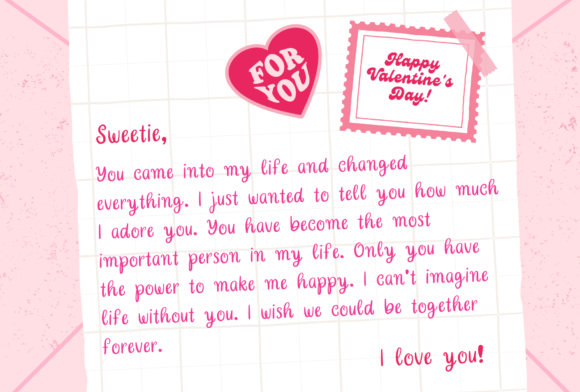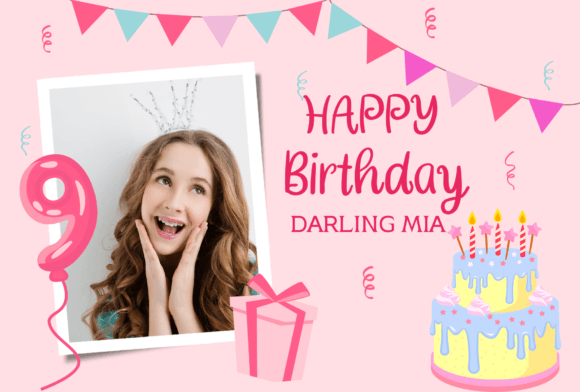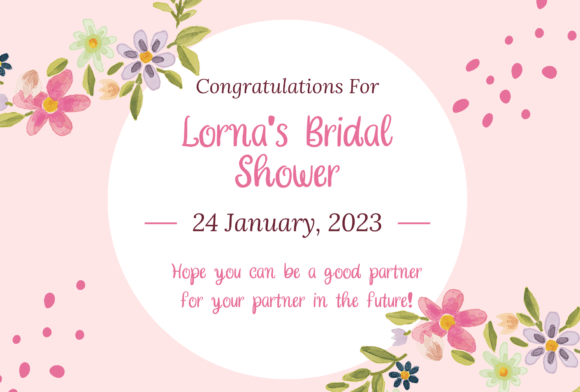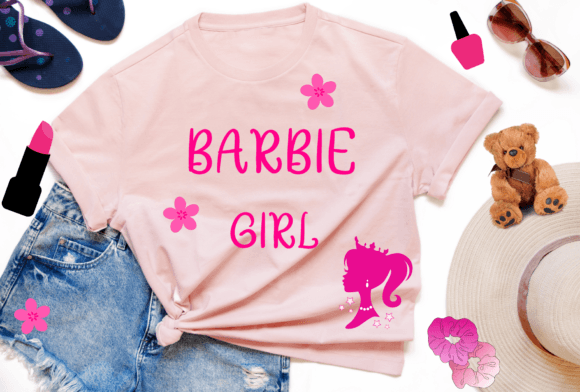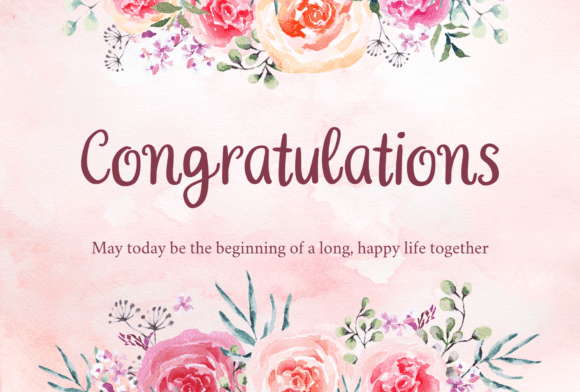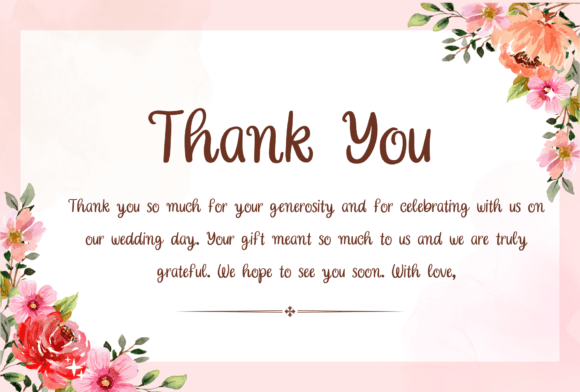
Unleashing Whimsy with the Barbie Girl Font
Have you ever found yourself scribbling out a birthday card for a little one, trying to convey the magic of childhood through words? That’s exactly where I was when I stumbled upon the delightful Barbie Girl Font. Its bright, cheerful letters seemed to dance off the page, capturing the essence of whimsy and wonder that we all strive to convey in our creative endeavors.
As a font, Barbie Girl is a charming, handwritten script that’s perfect for a variety of projects, from birthday cards and Valentine’s Day messages to wedding anniversary celebrations and fun merchandise like t-shirts and keychains. Designers will love the flexibility and playfulness it brings to their work, making it an invaluable addition to any digital design toolkit.
Key Features of Barbie Girl Font
- Font Family: Barbie Girl Font is a sans-serif font designed by Fontalicious, with a distinctive, playful look.
- Unique Characteristics: The font’s distinctive features include a rounded, childlike appearance, with a mix of bold and thin lines, giving it a fun and playful vibe.
Designer Review: Barbie Girl Font
Overall, the Barbie Girl Font is a fun and playful font that captures the essence of the iconic Barbie character. It’s perfect for designs that require a touch of whimsy and femininity.
The font’s main strengths include:
- ✨ Unique and distinctive letterforms that evoke a sense of nostalgia and retro charm
- ✨ Excellent legibility, making it suitable for body text and headings
- ✨ Versatility in usage, from fashion and beauty to kids’ products and educational materials
However, the font also has some limitations:
- ⚠️ Limited range of font weights and styles, which might limit its application in more complex designs
- ⚠️ Not ideal for serious or professional contexts, as it may come across as too childish or gimmicky
- ⚠️ Potential issues with font rendering at smaller sizes or in low-resolution environments
Overall, I would recommend the Barbie Girl Font for designs that require a lighthearted and playful touch. While it may not be suitable for every project, it’s a great choice for creative and imaginative designs that need a dash of fun and personality.
To get the most out of the Barbie Girl font, try combining it with bold, italic, or strikethrough effects to add emphasis.
You can also use the font in conjunction with other decorative fonts to create a unique and eye-catching design.
The Barbie Girl font is perfect for:
- Young adult fashion and lifestyle designs
- Playful and whimsical branding and marketing materials
Alternatives to “Barbie Girl Font” for Designers
Pacifico is a beautiful, elegant font ideal for designing luxurious and feminine branding, packaging, or advertisements. Its flowing lines and soft curves evoke a sense of sophistication and glamour, making it perfect for high-end fashion, beauty, or lifestyle brands.
Compared to Barbie Girl Font, Pacifico is more refined and sophisticated, with a more subtle touch. While Barbie Girl Font is playful and bubbly, Pacifico exudes elegance and poise.
Great Vibes is a fun, energetic font that’s perfect for creating playful and youthful branding, packaging, or advertisements. Its bright and cheerful feel makes it ideal for brands targeting a younger audience, such as fashion, entertainment, or lifestyle companies.
Compared to Barbie Girl Font, Great Vibes is more energetic and playful, with a bolder and more vibrant feel. While Barbie Girl Font is sweet and innocent, Great Vibes is fun and adventurous.